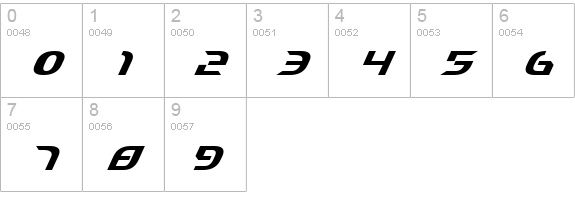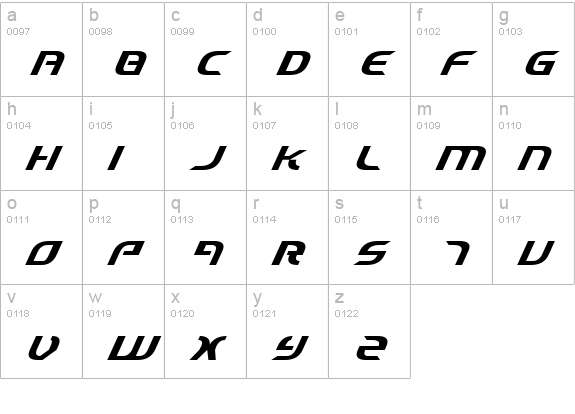
Starfighter Cadet Italic is a distinctive, italic variant in the Starfighter typeface family \xE2\x80\x94 well suited to design and typography projects.
Introducing Starfighter Cadet Italic font, a sleek and futuristic typeface perfect for all your design needs. This font exudes a sense of adventure and innovation, making it ideal for projects that require a modern and dynamic look. With its italic style, Starfighter Cadet adds a touch of elegance and sophistication to any design. And the best part? Starfighter Cadet Italic font is available for free download at FontsMarket.com. Don't miss out on the opportunity to add this stunning font to your collection without spending a dime. Download it now and elevate your designs with the bold and captivating style of Starfighter Cadet Italic font.